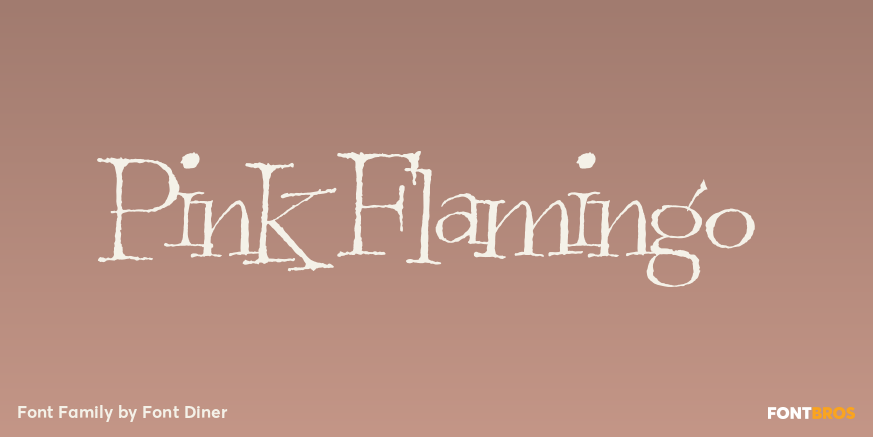
HomeFont BrosDistressedPink Flamingo DistressedSerifRetro (1936-1965)Wacky Pink Flamingo FacebookXPinterestWhatsApp 1 of 1 About Pink Flamingo A pen walks into a bar, gets loaded then turns out this tipsy retro serif font! It wakes up the next morning feeling drained!  DOWNLOAD NOW People also explored Faith Grace Font Bregor Font Miss Christmas Font Daily Danissa Font Uncial Antiqua Pro Bellgia Font Zenyth Font Hexagonas Font Ganttlets Font 348 0 TagsPink Flamingo Font Previous articleHedgehog HansNext articleAtria LEAVE A REPLY Cancel reply Comment: Please enter your comment! Name:* Please enter your name here Email:* You have entered an incorrect email address! Please enter your email address here Website: Save my name, email, and website in this browser for the next time I comment. Personal Use Free Satori Personal Use Free Read more about this font Gunplay Personal Use Free Read more about this font Girls Personal Use Free Read more about this font Adeline Personal Use Free Read more about this font BLOG 5 Fonts That Will Dominate Design Trends in 2026 5 Fonts for 2026 That Will Dominate Design Trends Typography plays a critical role in visual communication, and as we look ahead to 2026, it’s... Elegant Wedding Invitation Fonts – Handwritten & Script Fonts To increase your work productivity, choose the most readable fonts. Free Fonts Risk: Why Free Fonts Can Be Dangerous for Designers